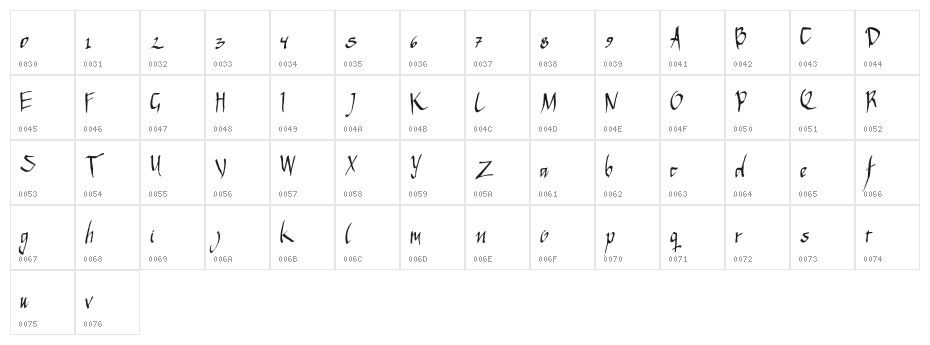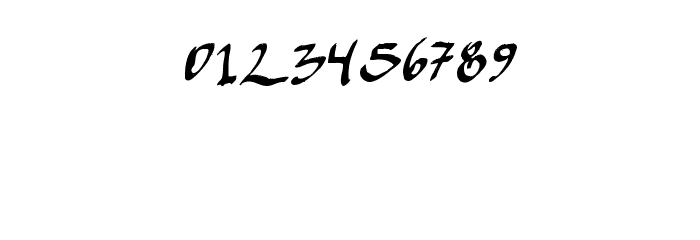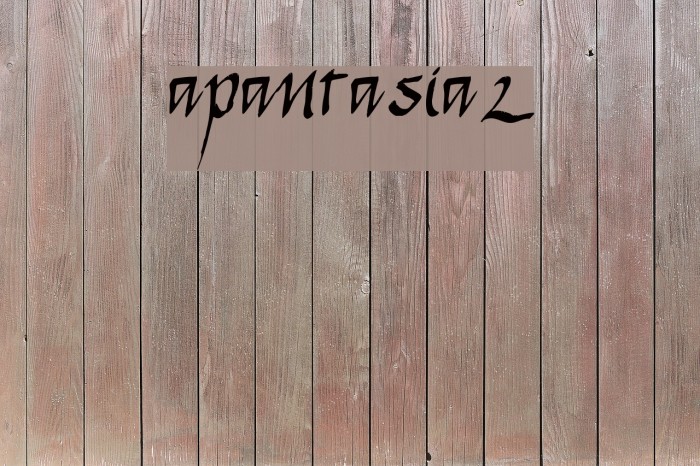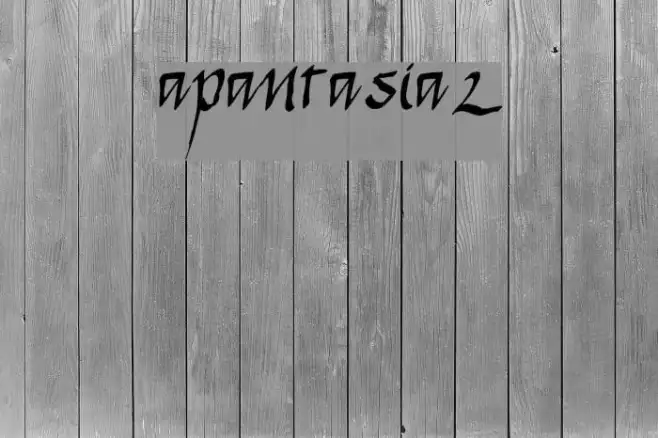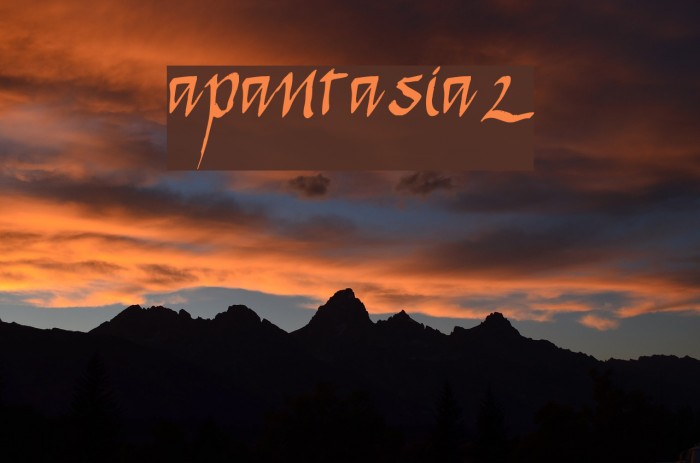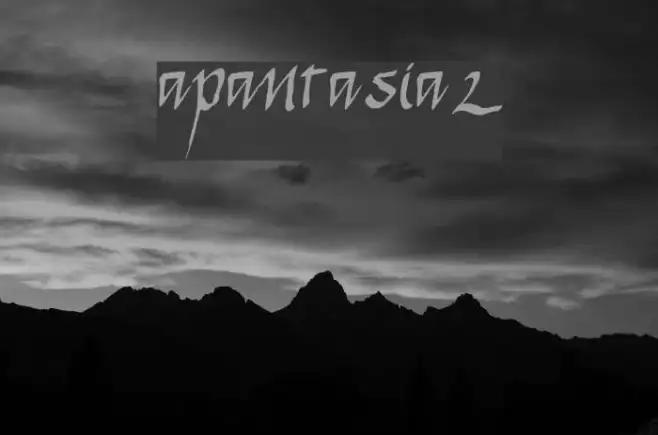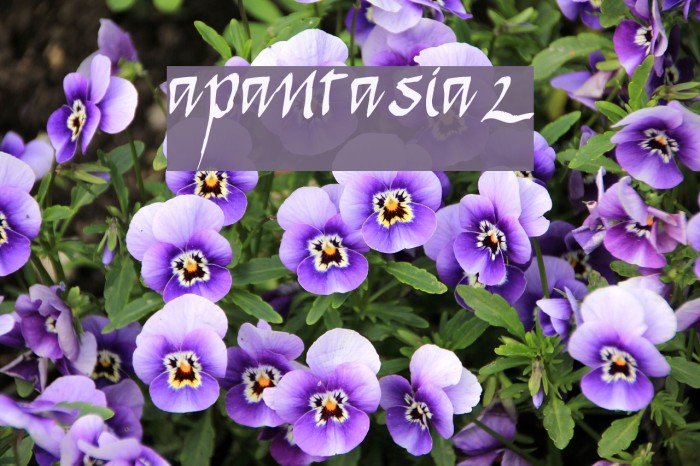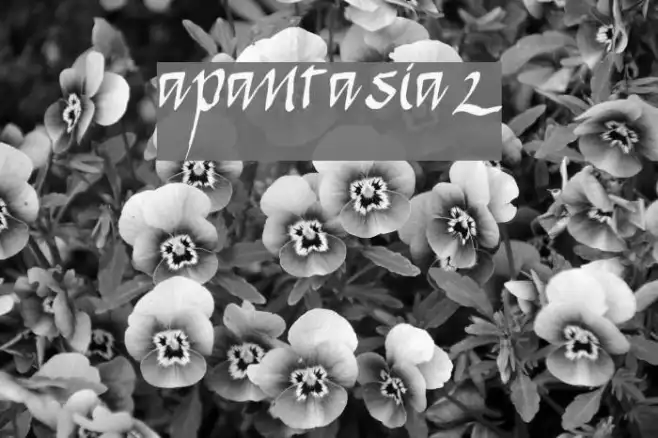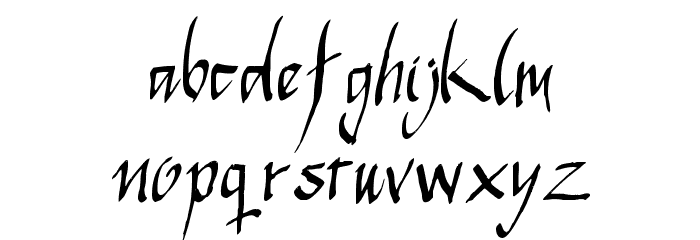
apantasia2 Font
apantasia2 Description
This font exhibits a dynamic and expressive style, reminiscent of calligraphic handwriting with a modern twist. The characters are crafted with sharp, angular strokes that convey a sense of movement and energy. The uppercase letters are bold and commanding, while the lowercase letters maintain a fluid and elegant appearance. The numerals are consistent with the overall style, featuring similar angular and flowing lines. This font's unique character shapes and artistic flair make it stand out, offering a blend of traditional calligraphy and contemporary design.
| Use Case | Logos, Invitations, Artistic projects |
| Proposed Projects | Ideal for artistic projects, branding, invitations, and any design requiring a touch of elegance and creativity. |